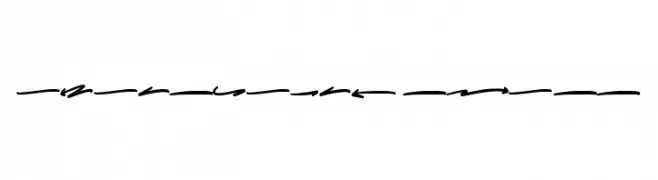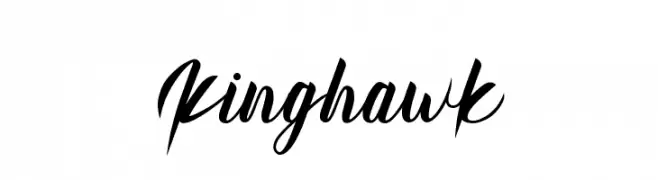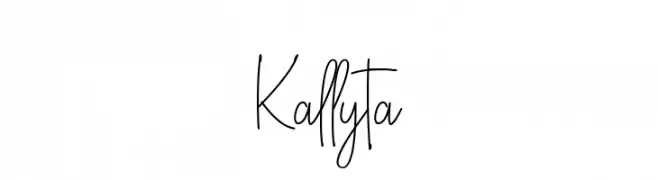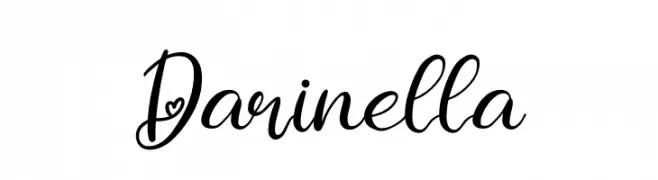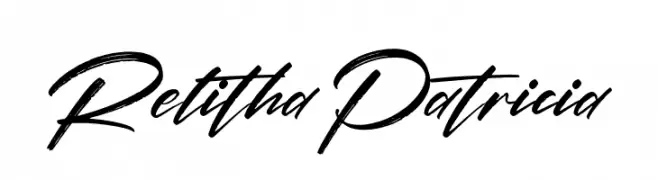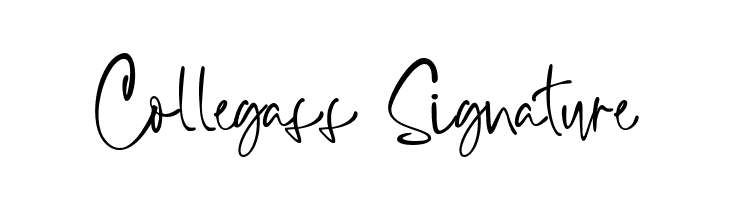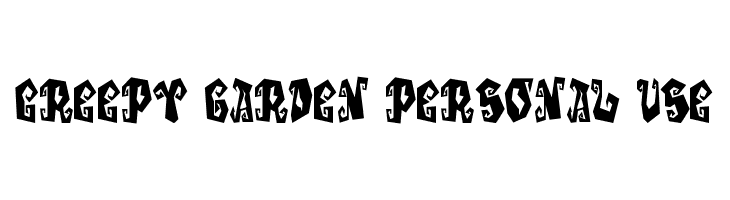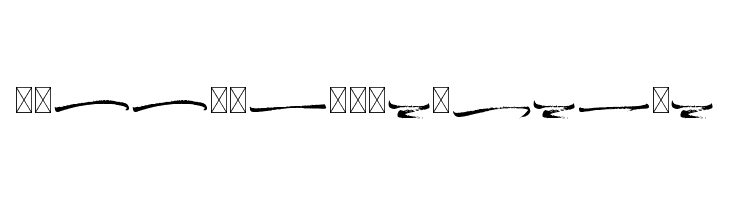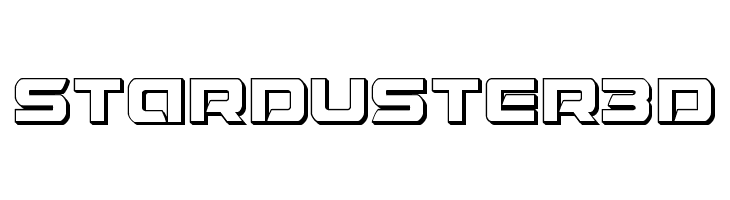
A whimsical and artistic font with fluid swash elements.
A dynamic and energetic script font with fluid, angular strokes.
A playful, handwritten font with tall, narrow letters and flowing curves.
A bold, playful handwritten font with thick strokes and energetic curves.
A casual, handwritten font with a flowing and dynamic style.
A playful script font with heart motifs and cursive elegance.
A dynamic, expressive handwritten font with fluid, continuous strokes.
A playful, hand-drawn font with a cartoonish and whimsical style.
A dynamic and elegant script font with fluid, cursive strokes.
An elegant script font with flowing, cursive lines and a refined aesthetic.